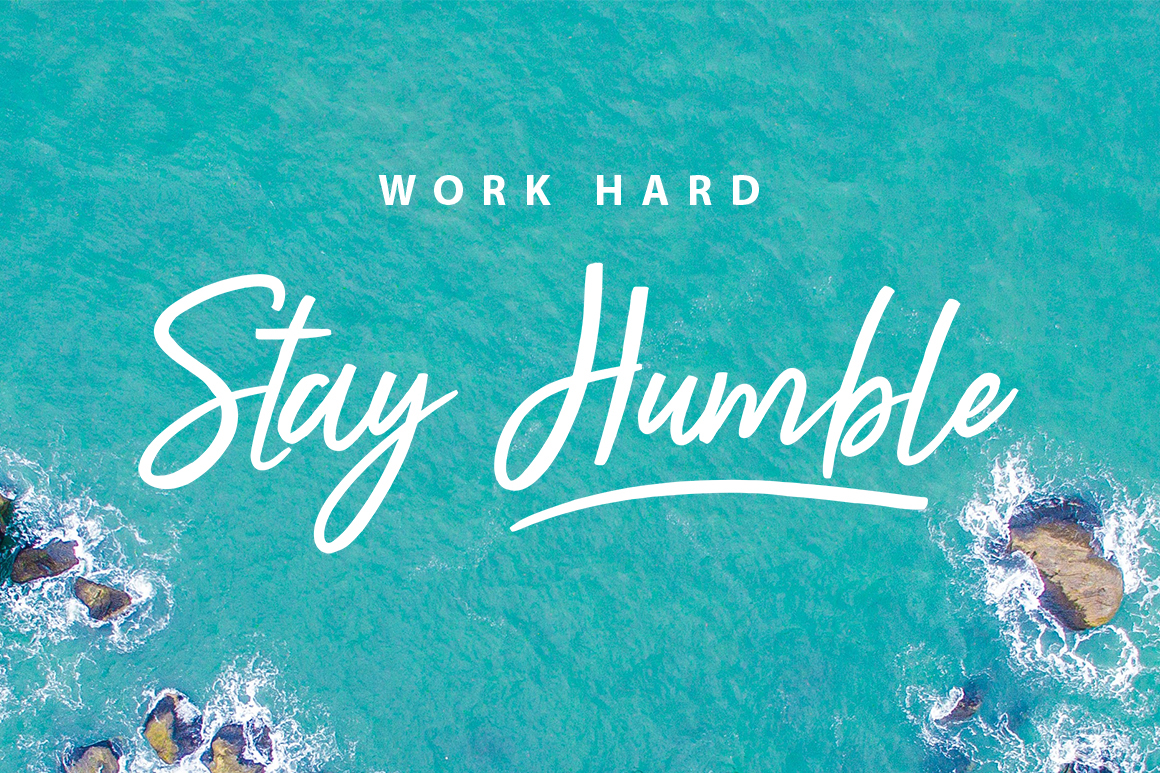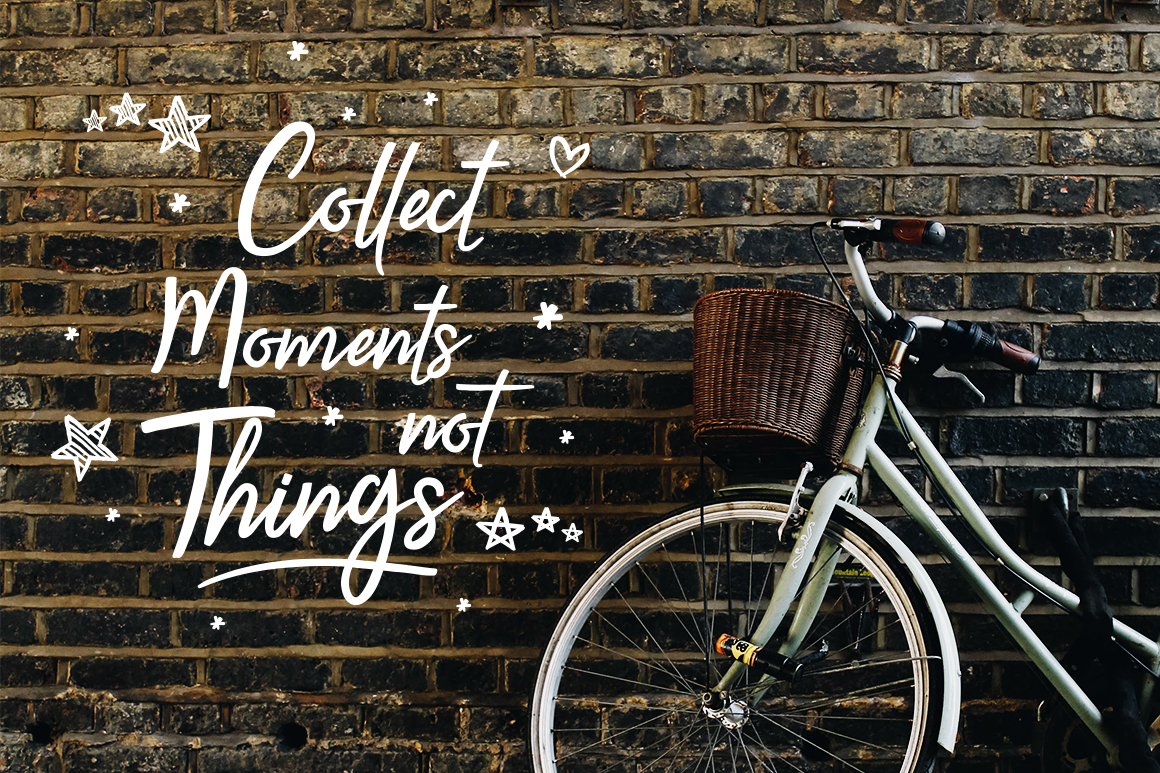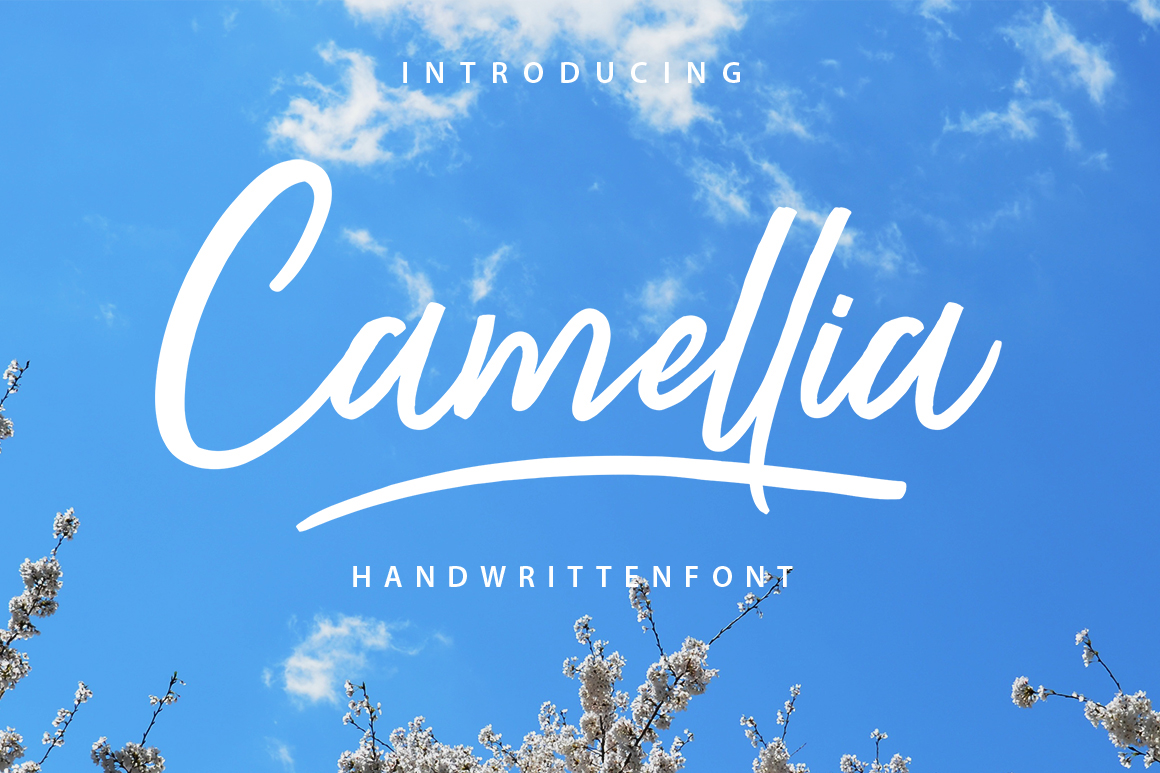
Camellia
Camellia Script Font
Camellia Script is handmade handwritten font . Very cool for logos, name tag, handwritten quotes, product packaging, merchandise, social media & greeting cards. It contains a full set of lower & uppercase letters, a large range of punctuation, numerals, and multilingual support.